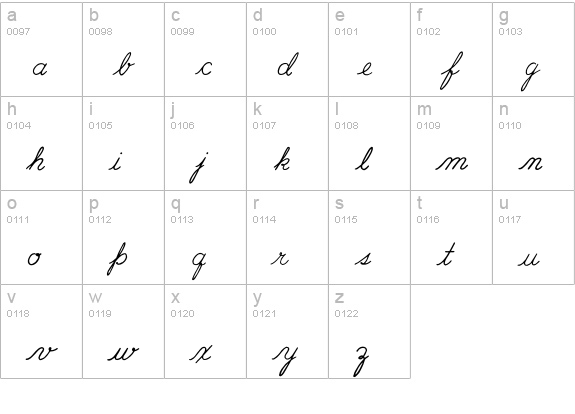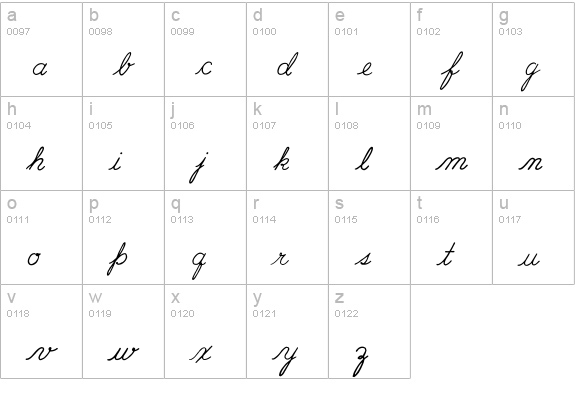
Introducing Simple font, a stylish and versatile typeface that effortlessly combines simplicity with elegance. This font's clean lines and minimalistic design make it ideal for a wide range of creative projects, whether you're designing a modern logo or creating eye-catching headlines. What sets Simple font apart is not only its sleek and contemporary look, but also its accessibility. This font is available free of charge, allowing you to bring your design visions to life without breaking the bank. Simply head over to FontsMarket.com, where you can easily download Simple font and start using it in your projects right away. With its wide range of weights and styles, Simple font offers endless possibilities for customization. From light to bold, and italic to regular, you have the flexibility to choose the perfect variation to suit your design needs. Whether you're aiming for a minimalist aesthetic or a bold and impactful statement, Simple font has got you covered. Designed with attention to detail, Simple font ensures legibility without compromising on style. Its clean and crisp letterforms guarantee readability, making it a great choice for both print and digital applications. From branding materials and advertisements to websites and social media graphics, Simple font will effortlessly enhance your visual communication. So why wait? Take advantage of this fantastic opportunity to elevate your designs with Simple font. Download it for free at FontsMarket.com and unlock a world of creative possibilities. Embrace simplicity and elegance with this versatile typeface and watch your designs come to life.